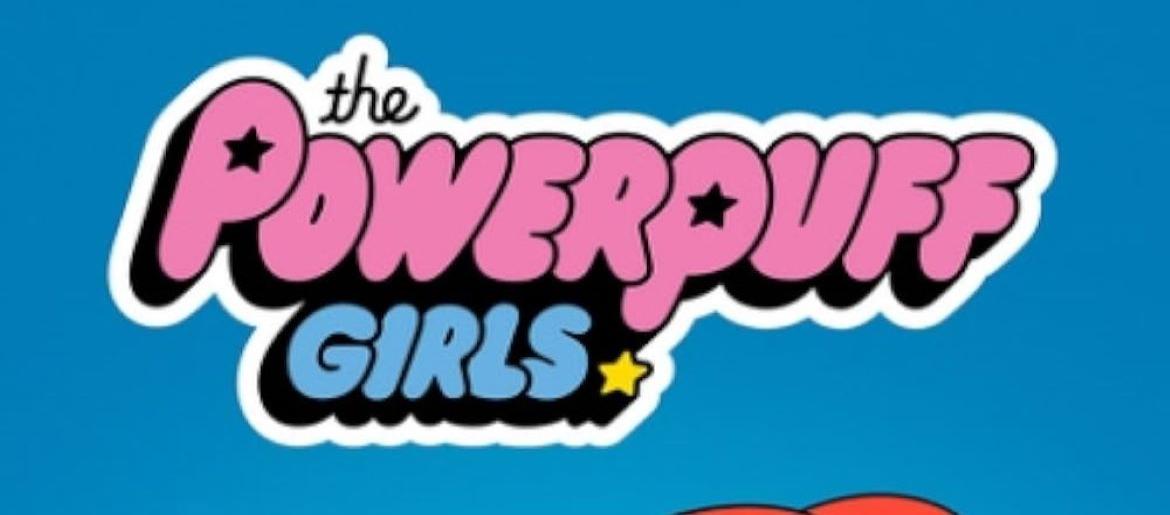
Powerpuff Girls Font
Powerpuff Girls font bursts with the colorful, action-packed energy of the beloved animated series. With bold lines, playful curves, and a dynamic style, it perfectly reflects the show’s mix of sweetness and superhero power. Ideal for party invitations, posters, or fan art, this font brings cute and powerful energy to any design.
About The Powerpuff Girls
The Powerpuff Girls is an animated TV series created by Craig McCracken for Cartoon Network. It follows Blossom, Bubbles, and Buttercup, three superpowered sisters who protect Townsville from villains while balancing everyday childhood fun.